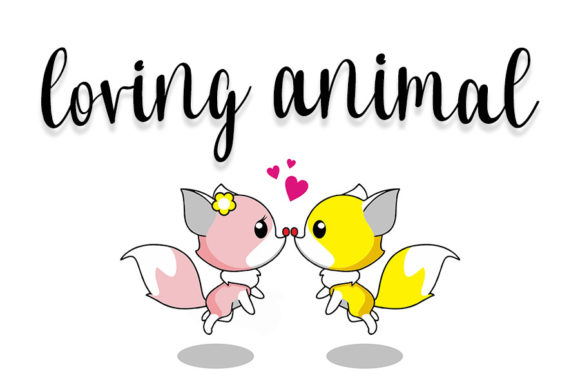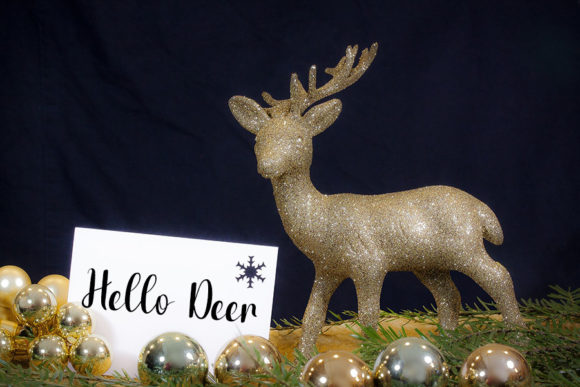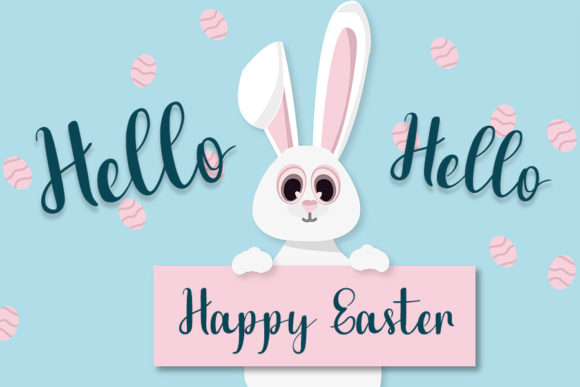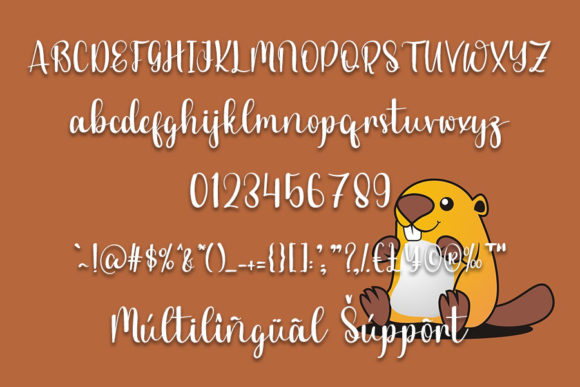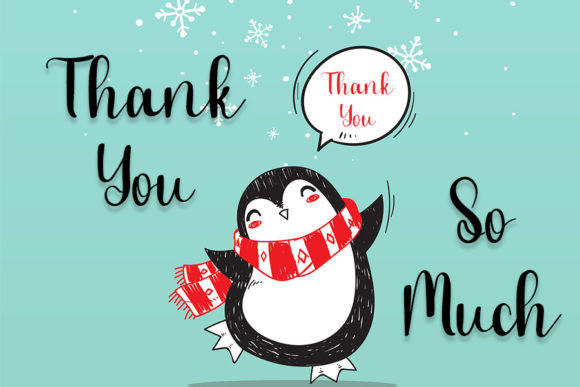
Introducing Animal Font: Elevate Your Designs with Elegance and Class
In the world of typography, fonts play a crucial role in conveying the tone and personality of a design. For designers and crafters seeking to add a touch of sophistication and elegance to their projects, the Animal Font is an excellent choice. This trendy handwritten font boasts a contemporary atmosphere and impeccable form, drawing inspiration from timeless classic calligraphy.
What is Animal Font?
Animal Font is a modern, handwritten typeface that exudes refinement and poise. Its unique blend of classic calligraphy and modern sensibilities makes it an ideal choice for designers looking to create stunning visual content. With its elegant strokes and precise letterforms, Animal Font is perfect for adding a touch of luxury to any design project.
Key Features of Animal Font
- Trendy and Contemporary: Animal Font features a fresh and modern design that will elevate your designs and make them stand out.
- Inspired by Classic Calligraphy: The font’s classic roots provide a sense of timelessness and sophistication, making it perfect for designs that require a touch of elegance.
- Impeccable Form: Each letterform is carefully crafted to ensure precision and consistency, resulting in a beautiful and harmonious visual experience.
- Versatile: Animal Font can be used for a wide range of design projects, from branding and advertising to packaging and digital media.
Use Cases for Animal Font
Animal Font’s versatility makes it suitable for various design applications. Here are a few examples:
- Branding and Logo Design: Create a lasting impression with a custom logo or brand identity that showcases your business’s personality and values.
- Wedding and Event Invitations: Add a touch of elegance and sophistication to your wedding or event invitations, making them truly unforgettable.
- Packaging Design: Elevate your product packaging with a beautiful and distinctive font that reflects your brand’s style and personality.
- Digital Media: Use Animal Font to create stunning social media graphics, blog posts, and website content that engages and captivates your audience.
Tips for Using Animal Font Effectively
To get the most out of Animal Font, consider the following tips:
- Pair with Neutral Backgrounds: Allow Animal Font to take center stage by pairing it with neutral backgrounds that won’t compete for attention.
- Experiment with Colors: Try out different color schemes to find the perfect combination that complements your design and brand identity.
- Mix with Other Fonts: Combine Animal Font with other fonts to create visual interest and add depth to your design.
Animal Font is a beautiful and elegant handwritten font that can elevate your design projects to new heights. With its trendy and contemporary design, impeccable form, and versatility, it’s an excellent choice for designers and crafters seeking to add a touch of sophistication and class to their work. Whether you’re creating branding materials, wedding invitations, packaging, or digital media, Animal Font is sure to impress.